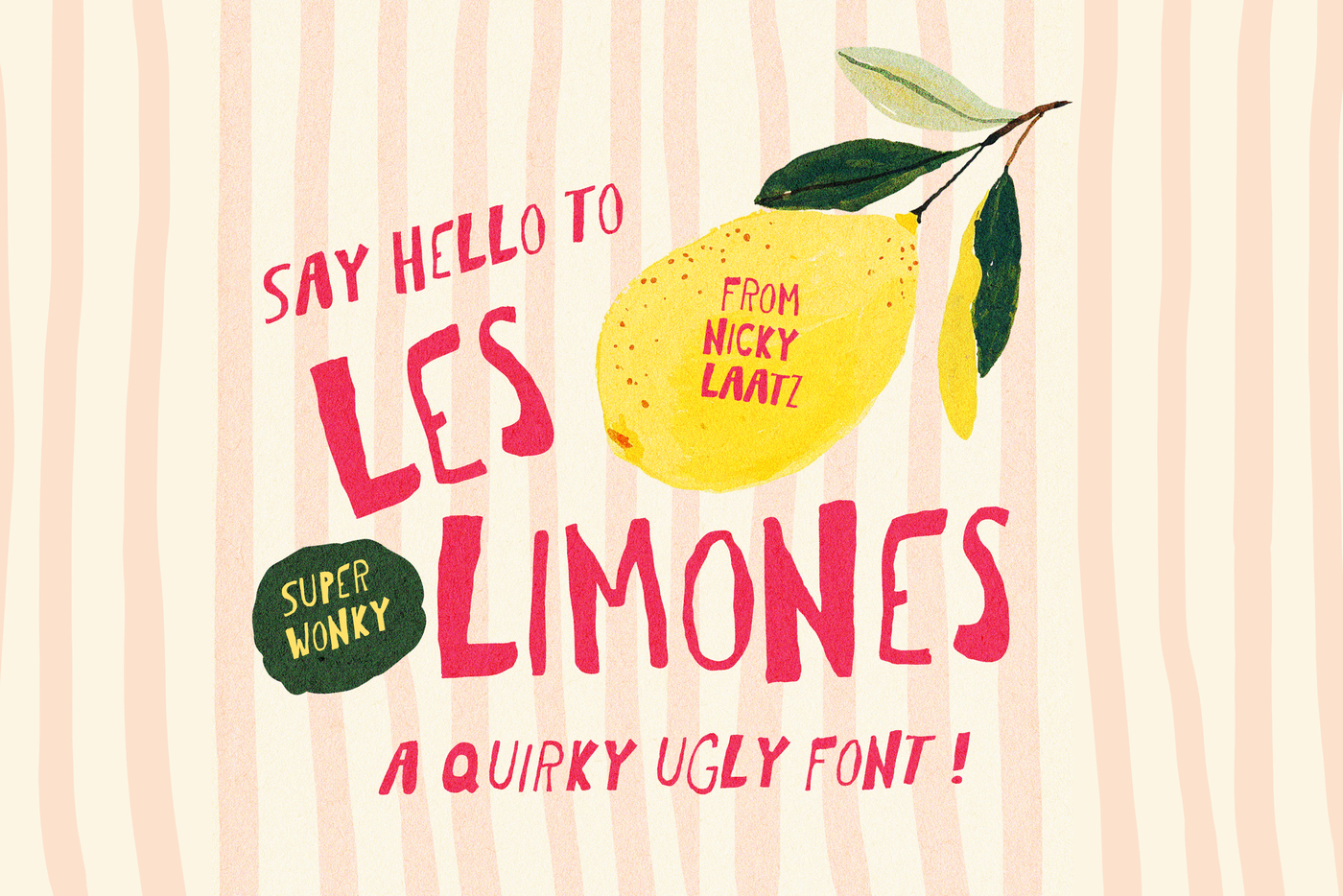
Les Limones Ugly Font
Sometimes you just need a really ugly font :D
Say hello to Les Limones - A super weird and wonky all caps font! Bold and unapologetically wacky - perfect for quirky posters, loud prints, perky greeting cards, party invites ,funky branding and so much more!